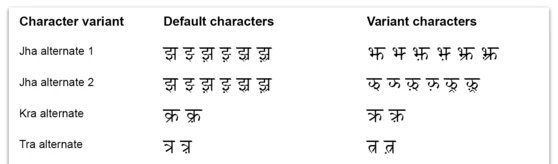
Adobe Indian Script Typefaces
Hello! I was wondering if Adobe has plans to release other Indian script typefaces, such as Malayalam, Telugu and Oriya/Odia, possibly even Sinhala, in the near future? The ones that have been released so far are very good and easy to use in InDesign.
Also, are there plans to extend Devanagari to include alternate letterforms, like Nepali and Newari versions of "jha"? (see attached image)
One critique is that Adobe Devanagari doesn't have the correct form of "tra" set as default. Using the style sets changes more than I'd want for Hindi. Thanks!
The image is taken from SIL's page on their Annapurna Devanagari font which has many similar features to Monotype's Devanagari font, including archaic letterforms.